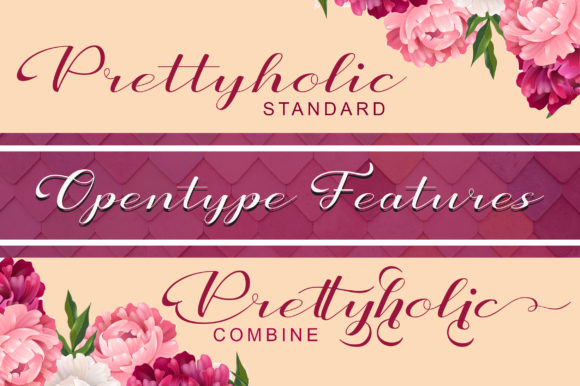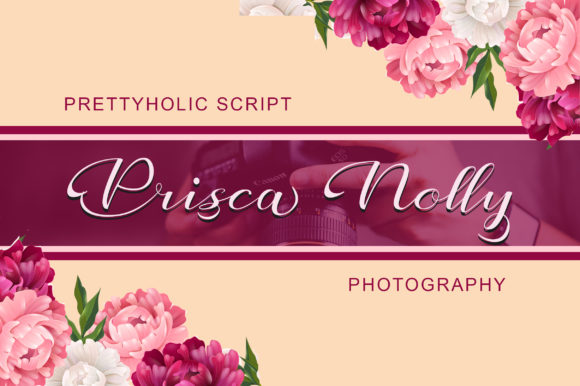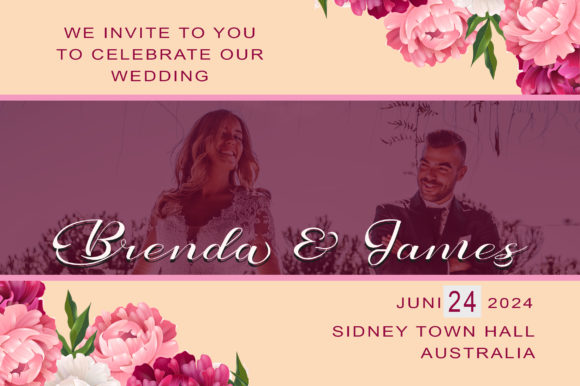
Introduction to Prettyholic Font
Prettyholic features a varying baseline and smooth lines.
It’s an equally classic, clean, delicate and friendly font family .